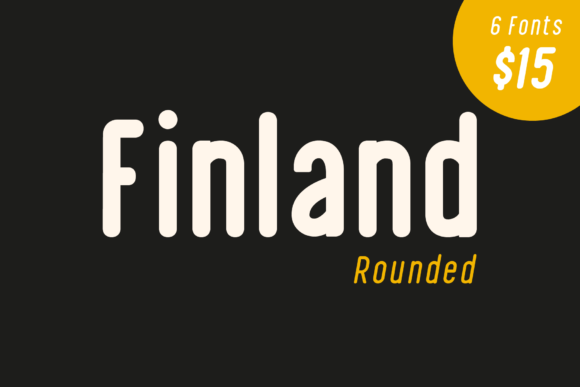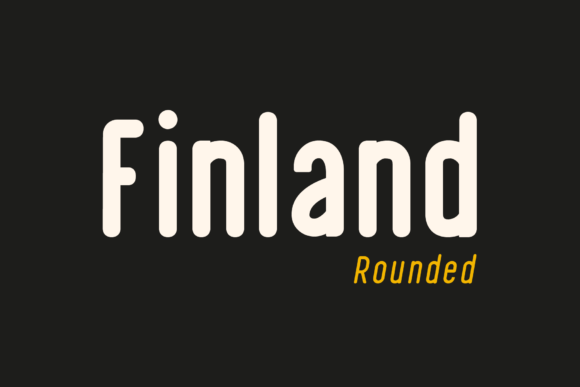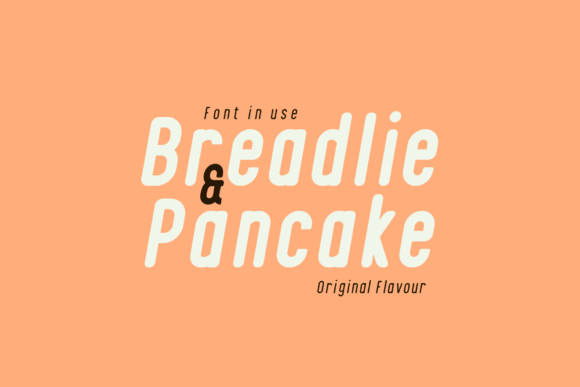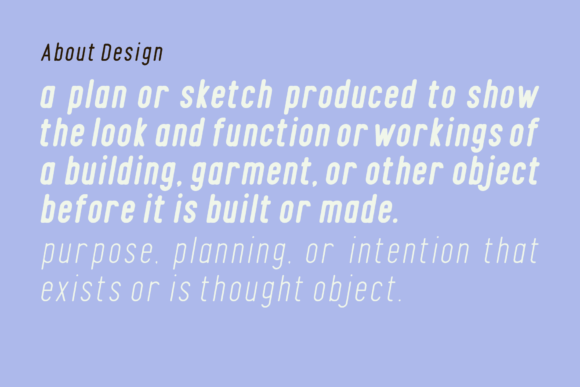
Finland Rounded Font: A Bold & Playful Font for Logo Design
About the Finland Rounded Font
Make a bold statement with Finland Rounded Font, a powerful and memorable font. The Finland Rounded font family has been crafted from scratch and features a unique structural logic: a fusion of pure geometry and optical balance.
The Finland Rounded family comes with 6 unique styles: Regular, Italic, Thin, Thin Italic, Bold & Bold Italic.
When combining these styles, you have a complete toolkit that allows you to create fun, professional designs such as logos, greeting cards, posters, branding and more.
Finland Rounded’s geometric structure and optical balance make it ideal for headlines, logos, and short-form text in branding materials and posters. Its friendly, yet modern personality works well for projects needing a touch of playful sophistication. Avoid using it for body text or long paragraphs; its rounded forms can reduce readability at smaller sizes.
Pairing Finland Rounded with a clean sans-serif like Open Sans for body text provides excellent contrast and readability. For a more sophisticated feel, consider pairing it with a classic serif like Garamond or a delicate script like Allura. The geometric nature of Finland Rounded also complements geometric sans-serifs like Futura for a consistently modern aesthetic.
Ultimately, Finland Rounded’s versatility stems from its balanced personality—modern yet approachable—making it suitable for brands seeking a clean, confident image without appearing overly austere or cold.
Finland Rounded Font Usage Examples
Finland Rounded Font Example